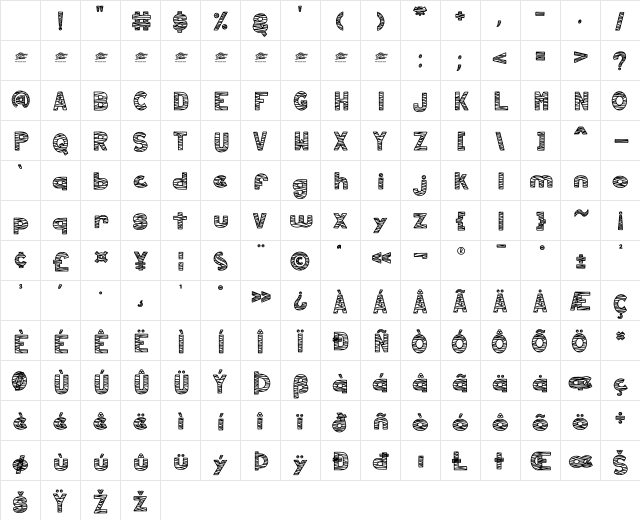
Complete hollow mummy display - Personal Regular glyph index. Displaying only characters natively supported by hollow mummy display - Personal Regular font.
hollow mummy display - Personal is built around its visual character rather than neutral utility - its distinctive forms are designed to make an impression at display sizes.
Font Pairing: Pair with a clean neutral sans-serif for body copy to let hollow mummy display - Personal's character lead without overwhelming the composition.
Pro Tip: Use hollow mummy display - Personal exclusively at display sizes - it was designed to be seen, not read at length. Let a neutral companion handle body copy.